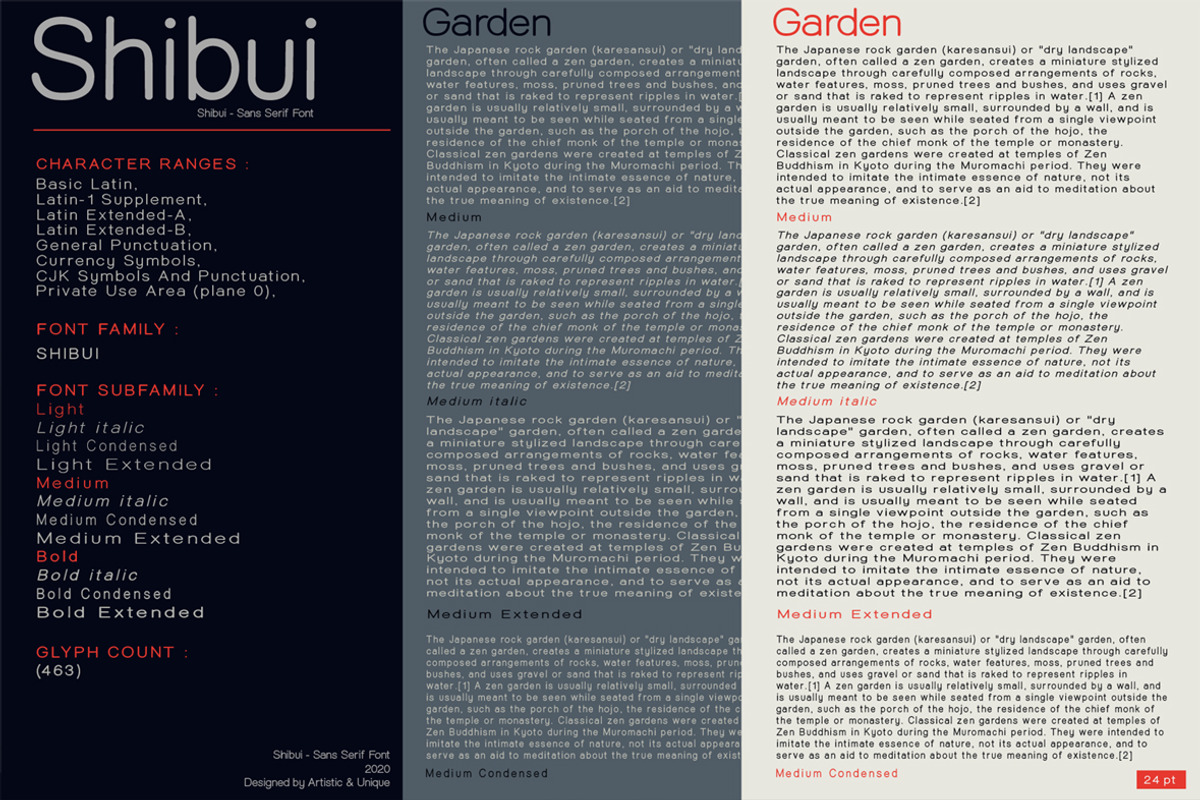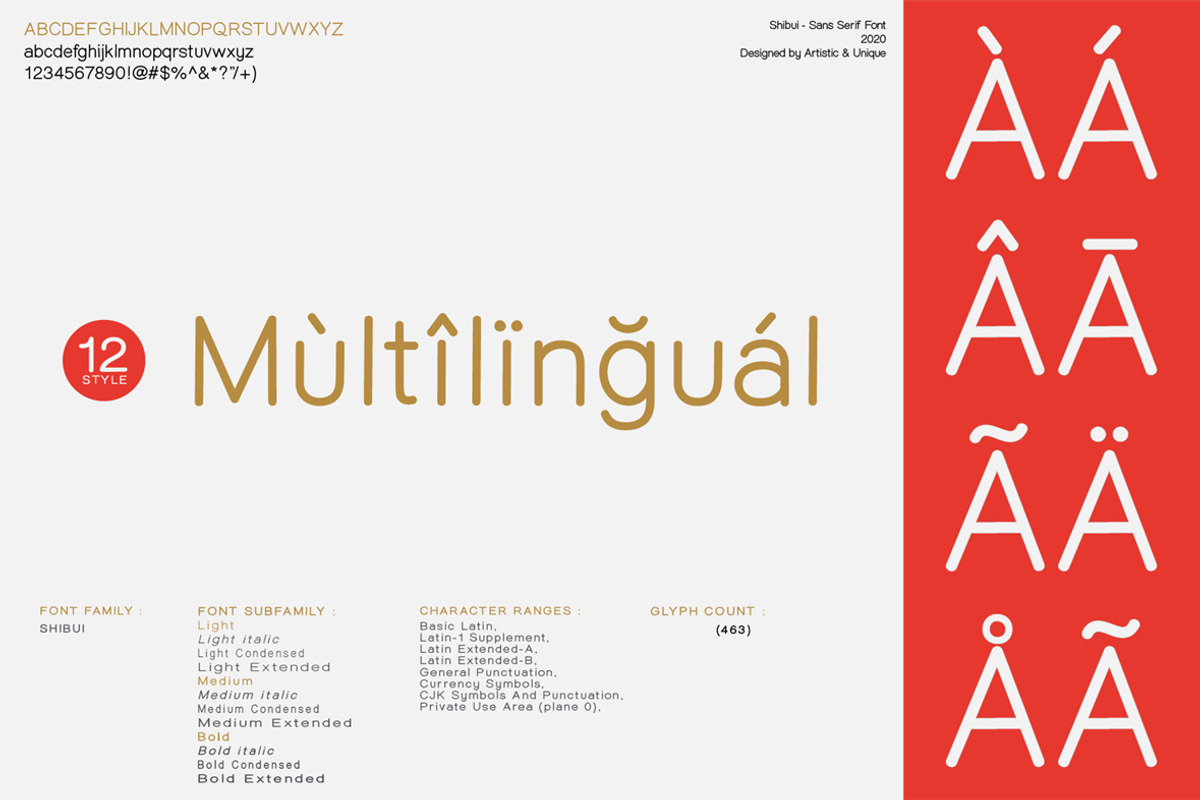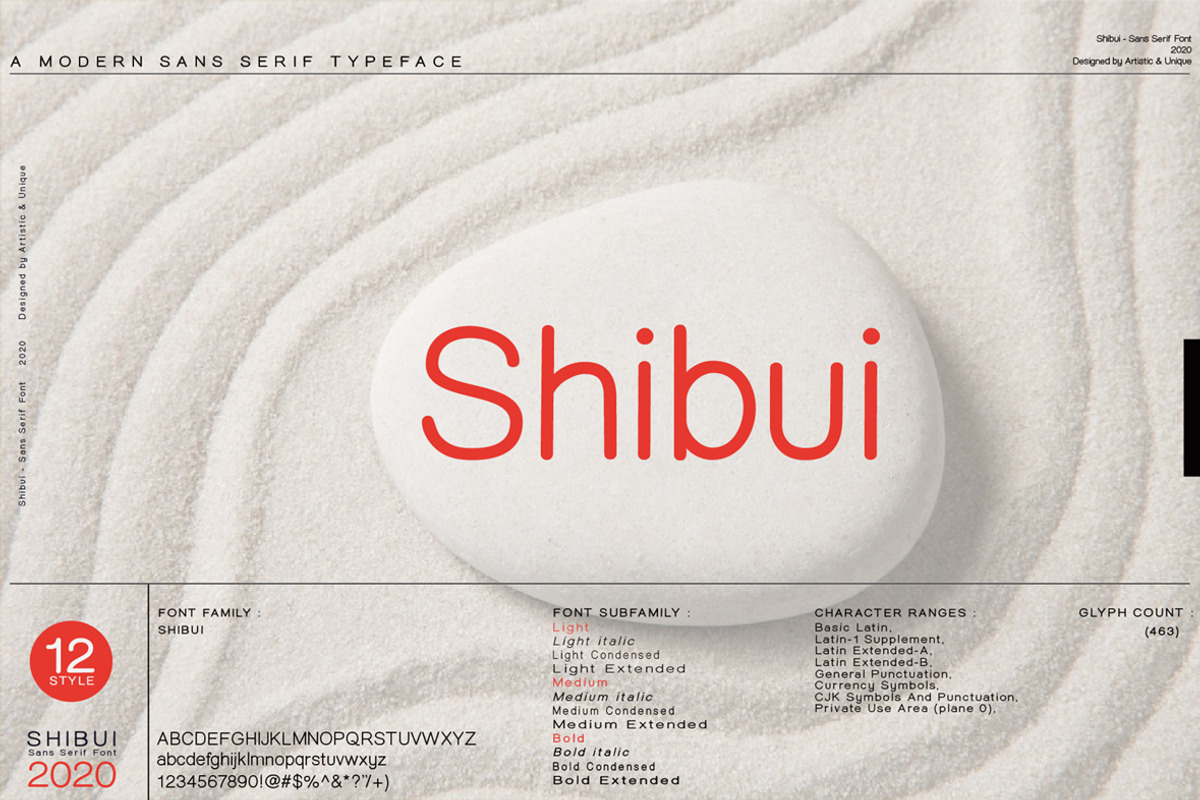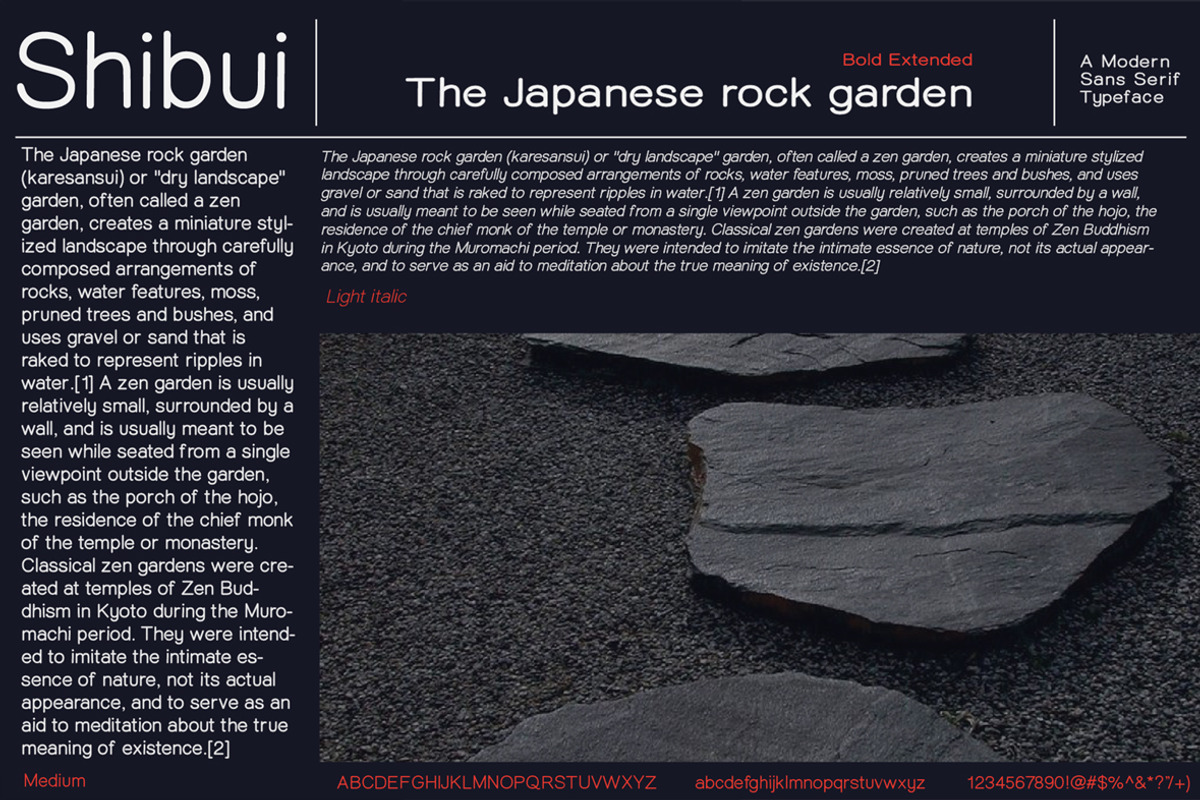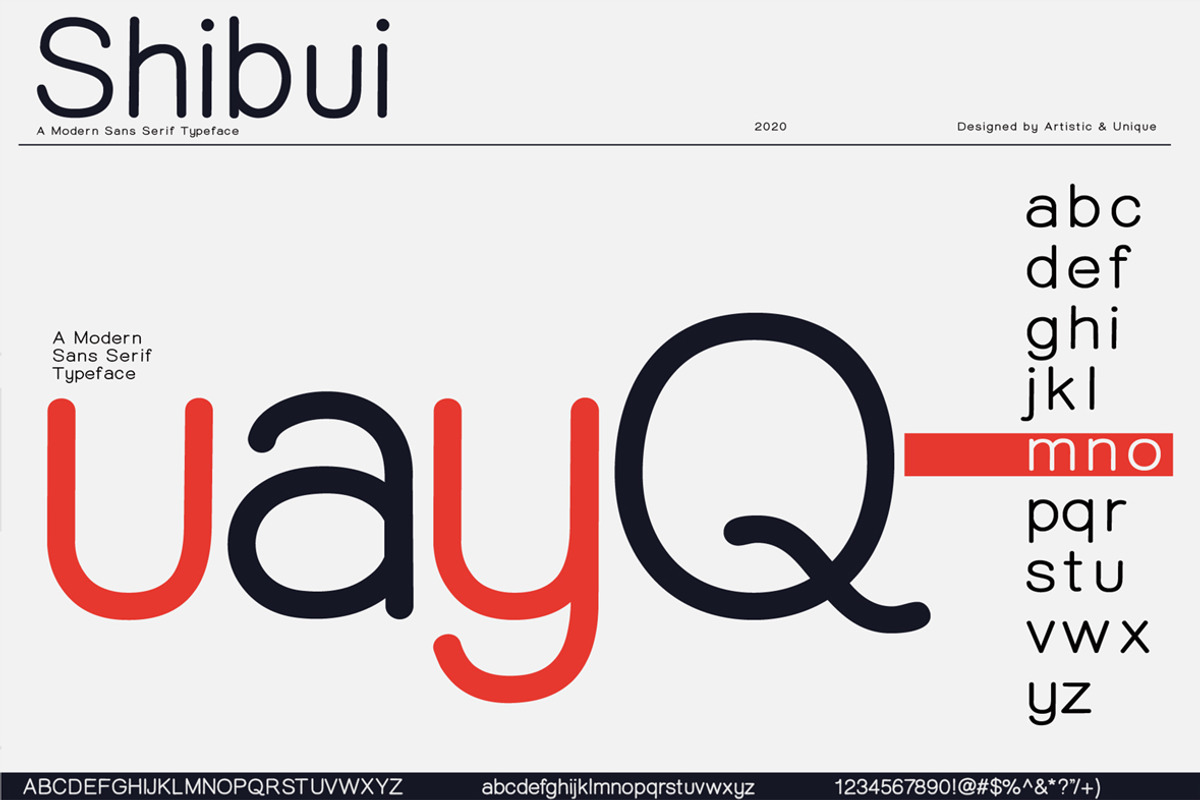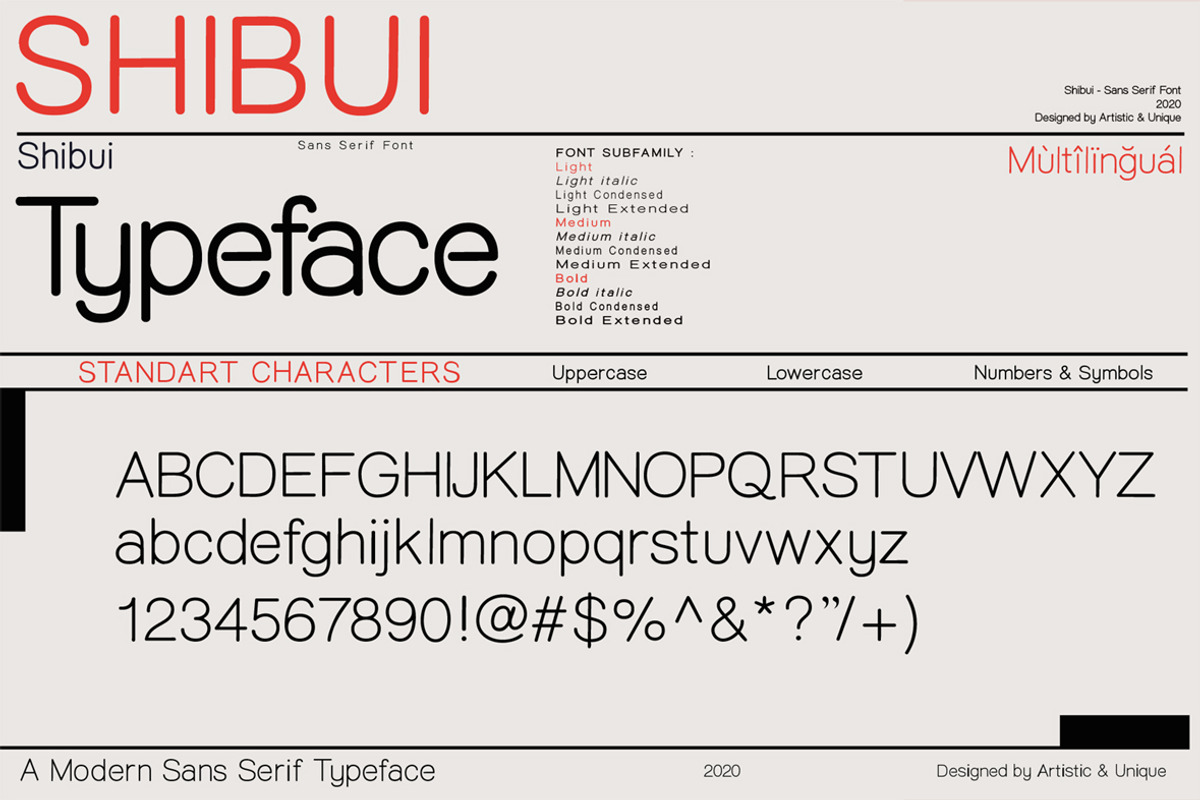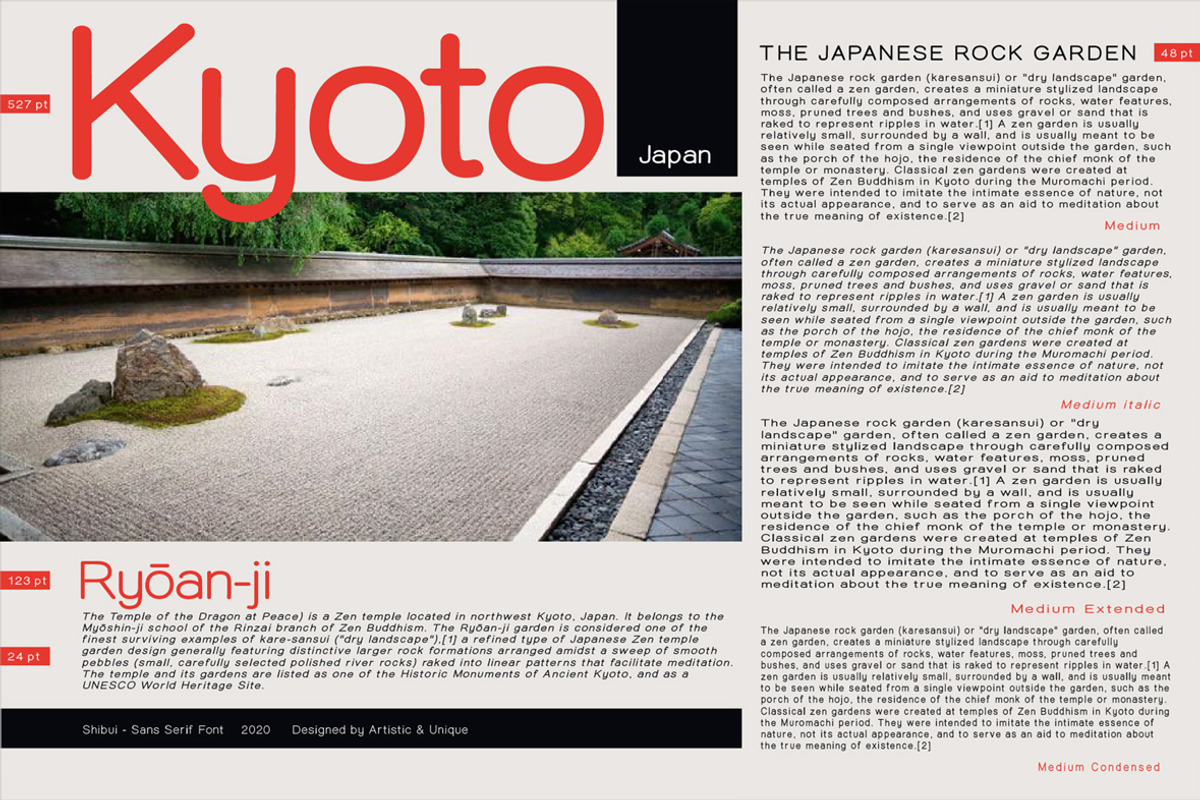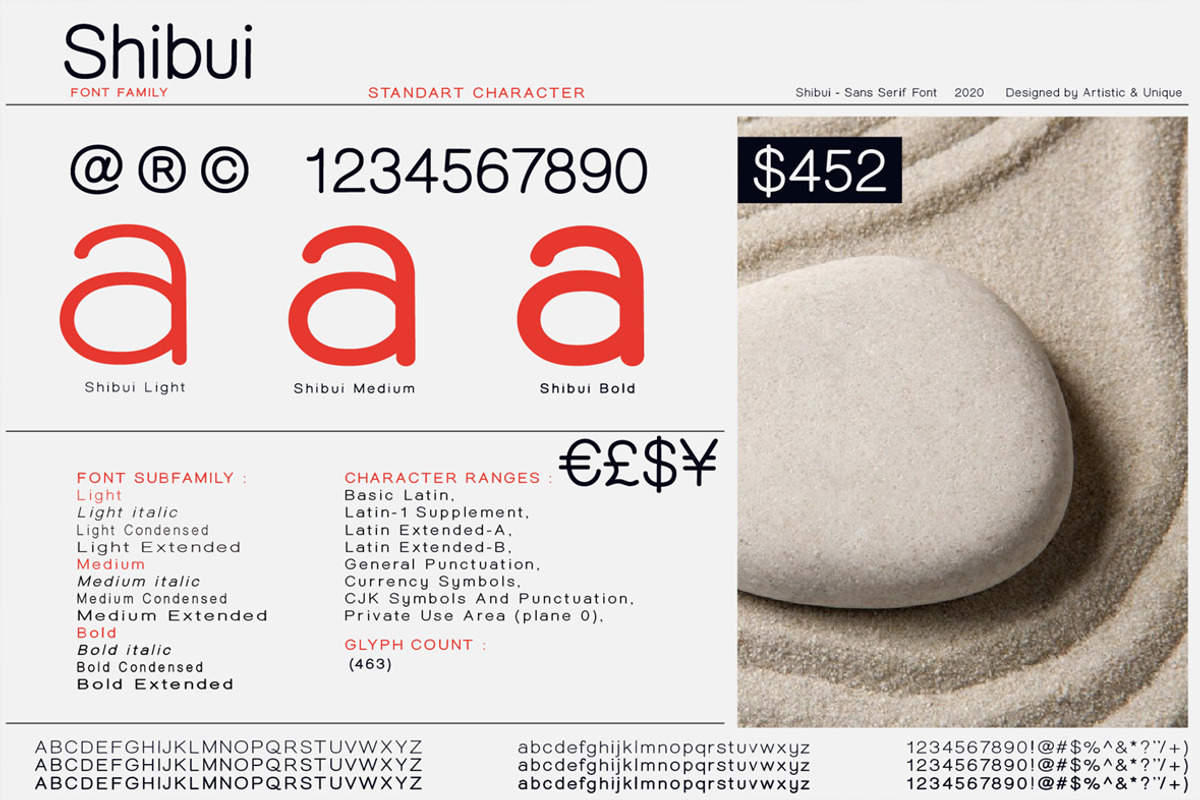
Shibui - Sans Serif font Family
Shibui - Sans Serif font Family - Multilingual (2020)
'' Shibui is a Japanese word that expresses a certain aesthetic of simple, subtle and inconspicuous beauty. ''
Shibui- Sans serif font, character structure is simple alphabet style. It has an elegant appearance with rounded folds. It offers the best solutions in your digital projects with this font which is highly readable in the smallest dimensions. With its modern minimalist stance, this font can meet your needs in all modern or classic creative projects.
Absolutely perfect for titles, websites, magazines, books, invitations, logos, packaging design, branding and more!
With this font you can create your unique designs.
Why Shibui - Sans Serif font Family is worth a look
Shibui - Sans Serif font Family by Artistic & Unique fits naturally into Branding, posters, packaging, typography.